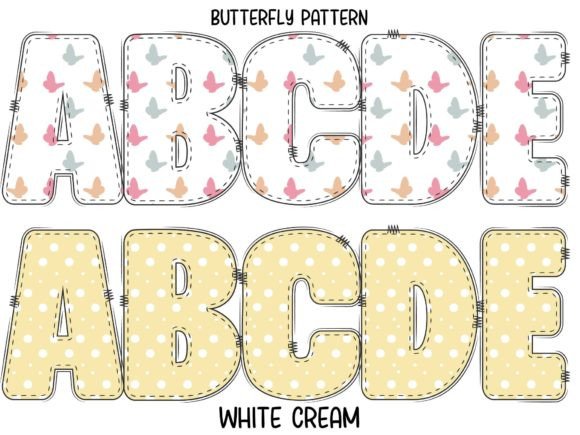
The Magic of Whimsy: Unlocking the Joy of Butterfly Pattern Font
Have you ever stared at a blank page, feeling stuck and uninspired, only to be sparked by a single image or design element? For many creatives, it’s those unexpected moments of inspiration that lead to our most beloved projects. And for those who adore all things sweet and playful, the Butterfly Pattern Font is sure to bring a smile to your face.
This delightful color font features tiny butterflies nestled within its letters, exuding a sense of warmth and affection that’s perfect for conveying love and joy. Whether you’re designing greeting cards, children’s books, or product packaging, the Butterfly Pattern Font is a valuable tool in your creative arsenal, adding a touch of whimsy and charm to any project. With its compatibility with popular design software, this font is a must-have for designers seeking to add a little magic to their work.
Butterfly Pattern Font Key Features
- Unique Design: The Butterfly Pattern Font features a beautiful and intricate design of butterflies, making it perfect for adding a touch of whimsy to your designs.
- Perfect for: The Butterfly Pattern Font is ideal for use in children’s books, greeting cards, stationery, and other design projects where a playful and whimsical touch is desired.
Butterfly Pattern Font Review
As a designer, I’m always on the lookout for unique and creative fonts that can elevate my designs. The Butterfly Pattern Font caught my eye with its whimsical and playful aesthetic.
- The font’s intricate details and patterns are beautifully crafted, making it perfect for designs that need a touch of magic.
- The font is highly customizable, allowing me to adjust the size, color, and spacing to suit my design needs.
- The font is suitable for a wide range of designs, from children’s books to wedding invitations, and even packaging designs.
- The font may not be suitable for designs that require a high level of professionalism or sophistication.
- The font’s complexity may make it difficult to read in certain contexts, such as in small text sizes or in complex layouts.
Overall, I’m impressed with the Butterfly Pattern Font. While it may not be perfect for every design, its unique charm and customization options make it a great addition to any designer’s toolkit. With some careful planning and consideration, this font can add a touch of magic to any design.
Use the Butterfly Pattern Font to add a whimsical touch to your designs.
Combine the font with other decorative elements, such as flowers or leaves, to create a cohesive look.
Use the Butterfly Pattern Font for:
- Children’s party decorations and materials.
- Floral-themed designs and patterns.